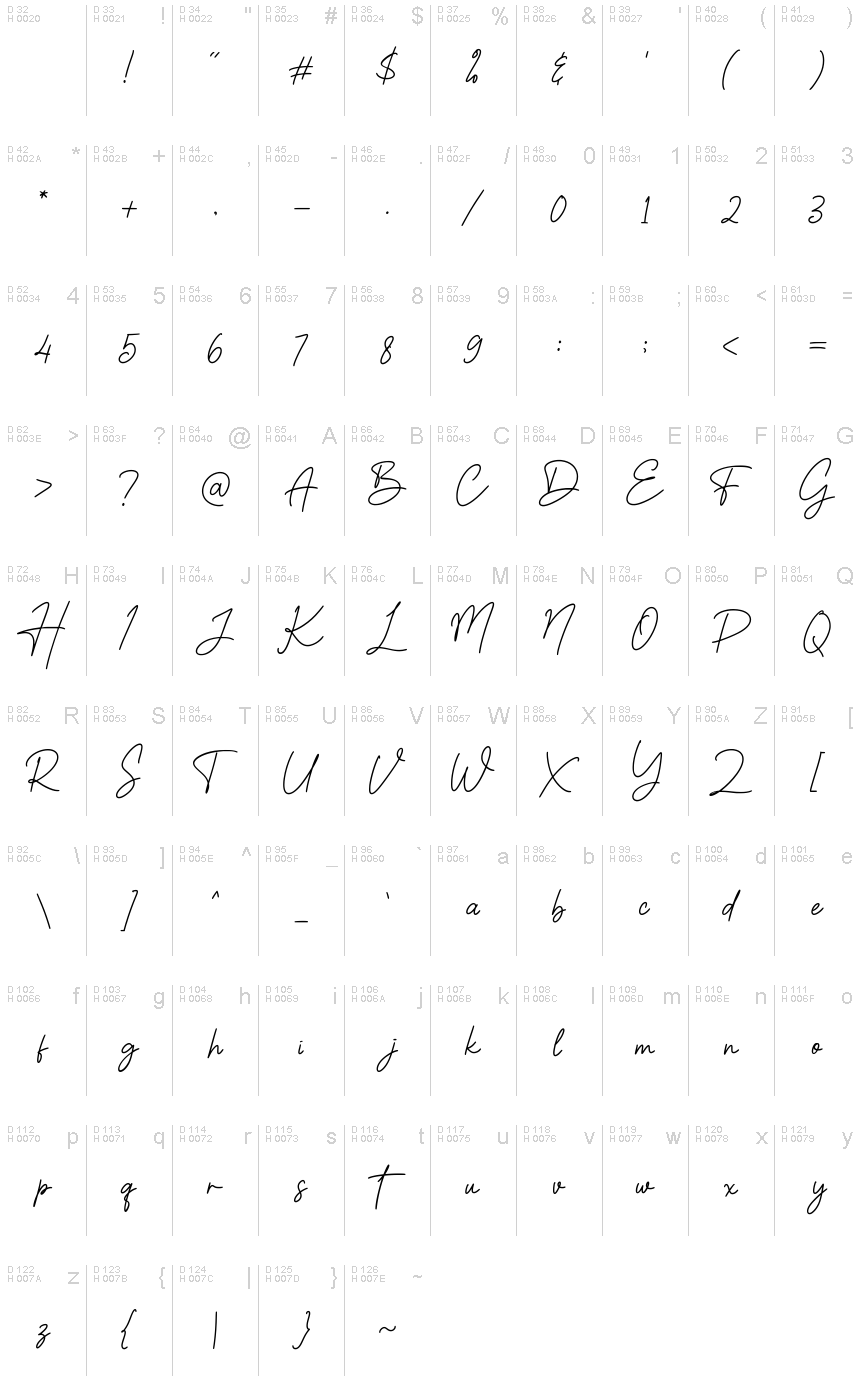
Best Friend
Best Friend, designed by Mozatype, is a handwritten font that exudes charm and personality. Its light weight gives it an airy and approachable feel, perfectly capturing the essence of an intimate note or a cozy coffee shop menu. The flowing letters of Best Friend are reminiscent of elegant cursive writing, making it an excellent choice for invitations, greeting cards, and personal branding endeavors.
The aesthetic appeal of Best Friend lies in its blend of casual sophistication with a personal touch. This font invites creativity and could be the go-to choice for projects that require a human element with finesse. Whether it's for editorial design, social media graphics, or boutique branding, Best Friend offers versatility while adding a heartfelt warmth to your work.